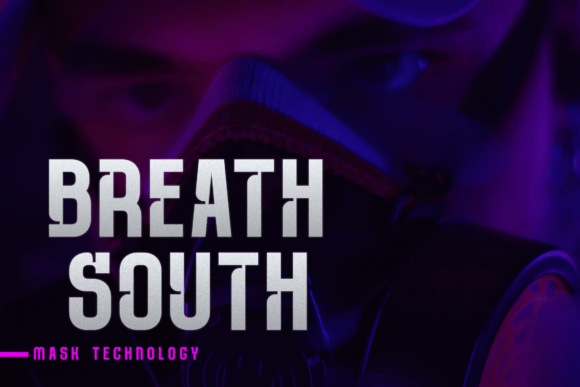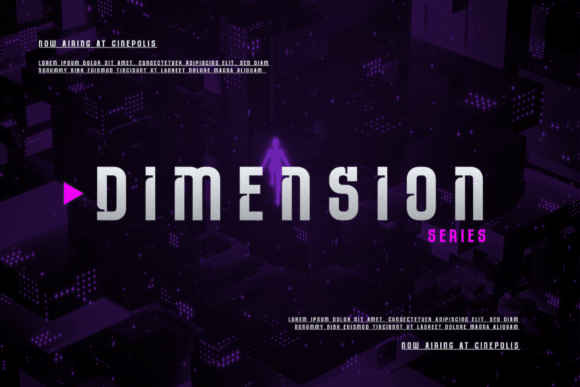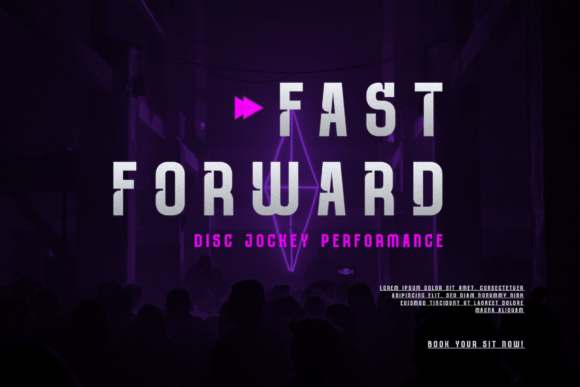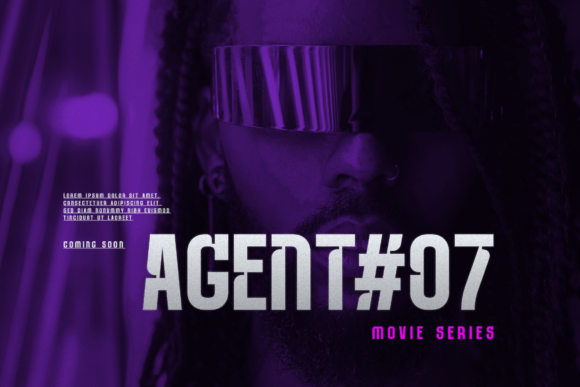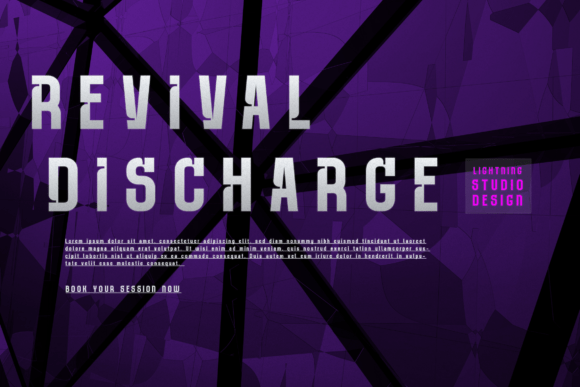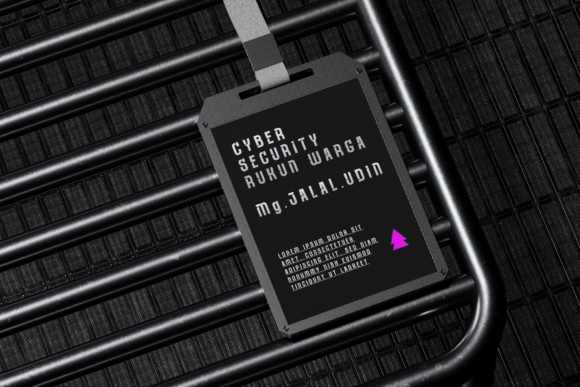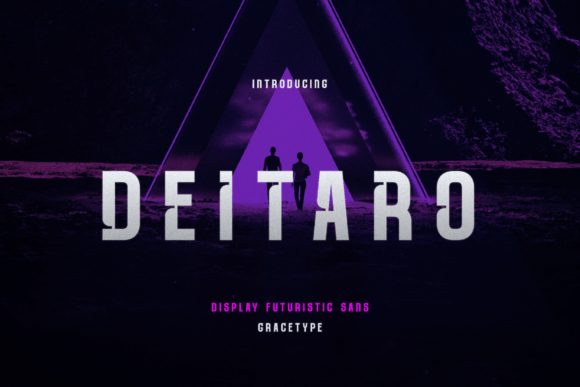
Introducing Deitaro Font: Elevate Your Branding to Futuristic Heights
In the realm of typography, few fonts manage to capture the essence of a futuristic, high-tech aesthetic quite like Deitaro. This display sans font is meticulously designed to bring a cinematic impact to your branding, making it the perfect choice for those looking to make a bold statement. With its unique blend of blocky letterforms and cyber-grid soul, Deitaro is set to revolutionize the way you approach your visual identity.
The Design Philosophy Behind Deitaro
Deitaro’s design is rooted in the futuristic and the industrial. Its tall, blocky letterforms are reminiscent of sci-fi machinery, evoking a sense of power and technological advancement. The font features unique stencil-like cuts and sharp, angular silhouettes that give it a distinctive cyber-grid soul. This design philosophy makes Deitaro an ideal choice for projects that demand a strong, futuristic presence.
Applications of Deitaro Font
Deitaro’s versatility and striking appearance make it suitable for a wide range of applications. Some of the key areas where Deitaro truly shines include:
- eSports Team Identities: In the competitive world of eSports, standing out is crucial. Deitaro’s commanding weight and industrial rhythm make it the perfect choice for eSports team logos and branding, allowing teams to project a strong, futuristic image.
- Independent Gaming Studios: For indie gaming studios looking to make a mark in a crowded market, Deitaro offers a typographic solution that is both memorable and impactful. Its futuristic vibe aligns perfectly with the innovative and often avant-garde nature of indie games.
- Sci-Fi Book Titles: Authors and publishers of sci-fi literature will find Deitaro to be an excellent choice for book titles. The font’s ability to evoke a sense of futurism and otherworldliness can help attract readers to sci-fi and fantasy novels.
- High-Tech “Neon-Noir” Social Media Headers: For social media campaigns aiming for a high-tech, neon-noir aesthetic, Deitaro provides the perfect typographic element. Its sharp, angular lines and cyber-grid aesthetic fit seamlessly into the neon-lit, futuristic landscapes of noir-inspired visuals.
Why Choose Deitaro?
Choosing Deitaro for your typography needs comes with several advantages:
- Unique Aesthetic: Deitaro offers a unique blend of industrial and futuristic design elements, setting it apart from more traditional typefaces.
- Versatility: Despite its strong futuristic appearance, Deitaro is surprisingly versatile, capable of being used across a range of mediums and applications.
- Memorability: The commanding presence of Deitaro ensures that your branding or message is not only noticed but also remembered.
Deitaro is more than just a font – it’s a statement. It’s a declaration of innovation, of forward-thinking, and of a commitment to standing out in a crowded digital landscape. Whether you’re an eSports team looking to assert your dominance, an indie game studio aiming to leave your mark, or a writer seeking to transport readers to new worlds, Deitaro offers the tools to elevate your brand into the next dimension. With its unique design, versatility, and impact, Deitaro is poised to become a premier choice for those looking to merge technology and creativity in their branding efforts.
Launch Your Branding into the Future with Deitaro
Don’t just imagine the future – create it with Deitaro. Dive into the world of futuristic typography and discover how Deitaro can transform your brand’s visual identity. With Deitaro, the future of your brand’s aesthetic is not just bright – it’s neon.